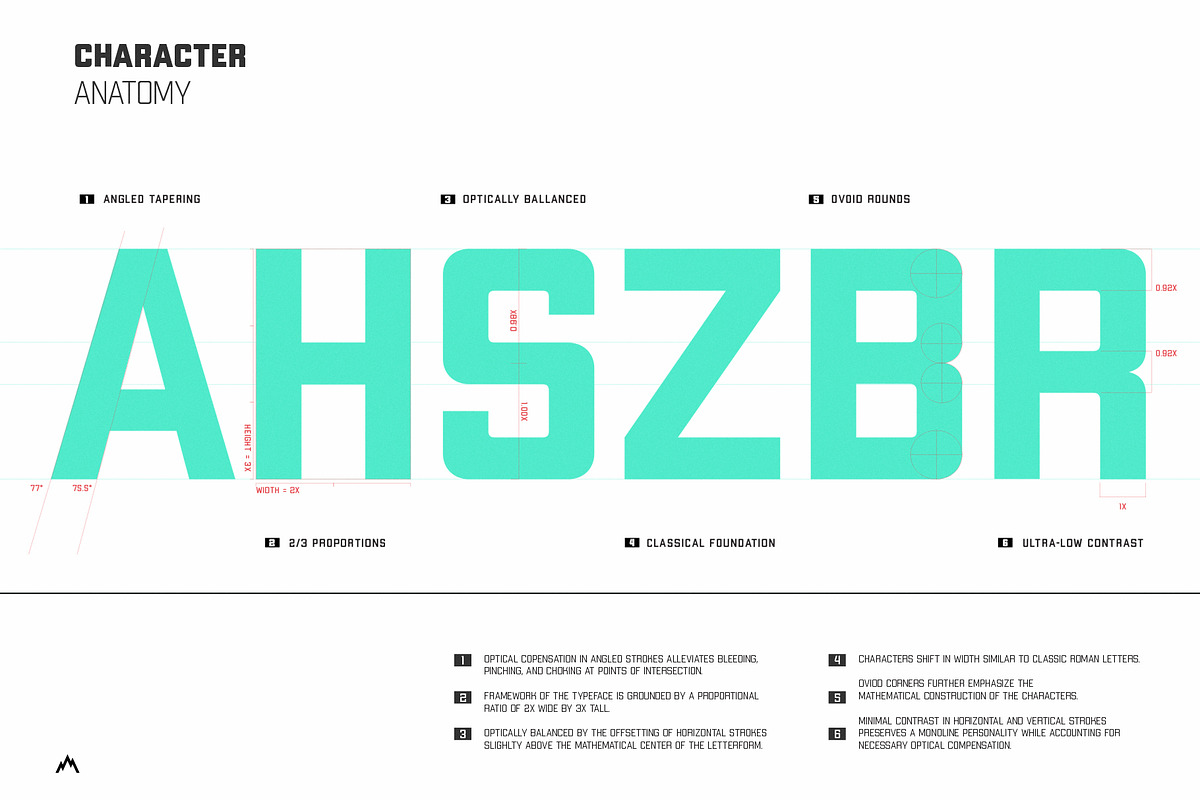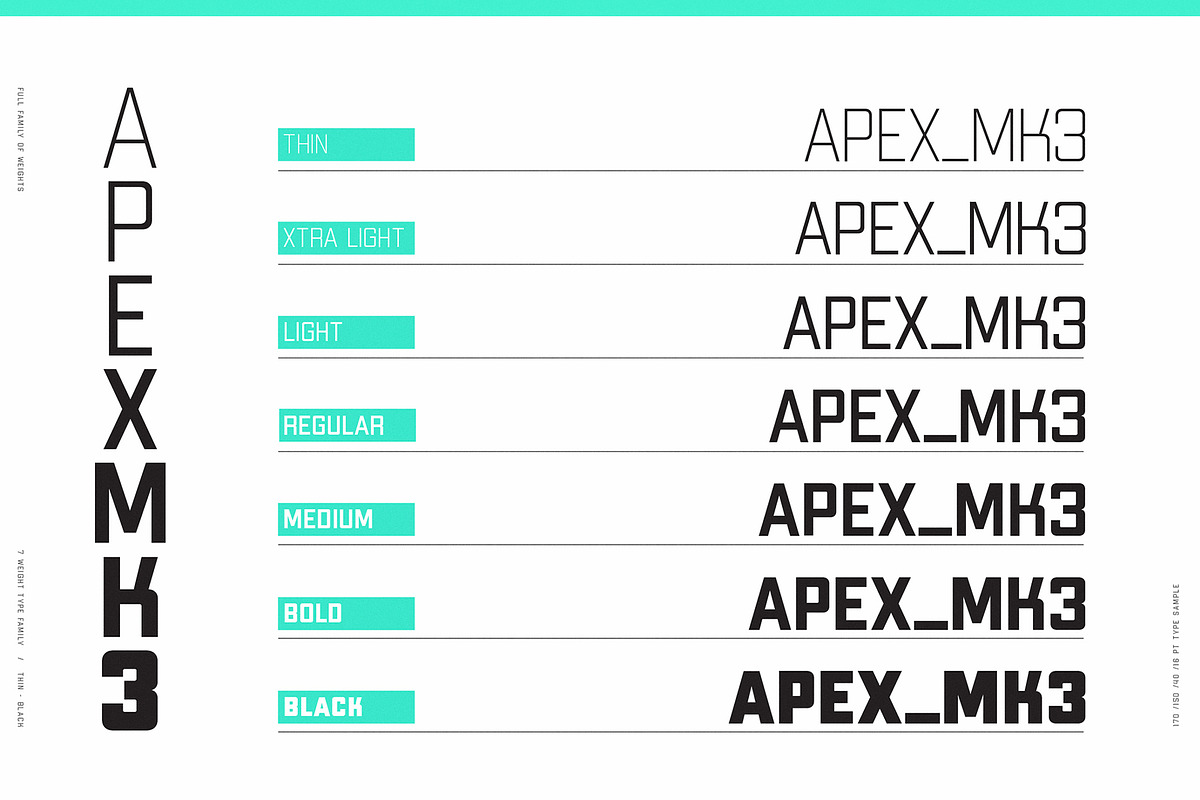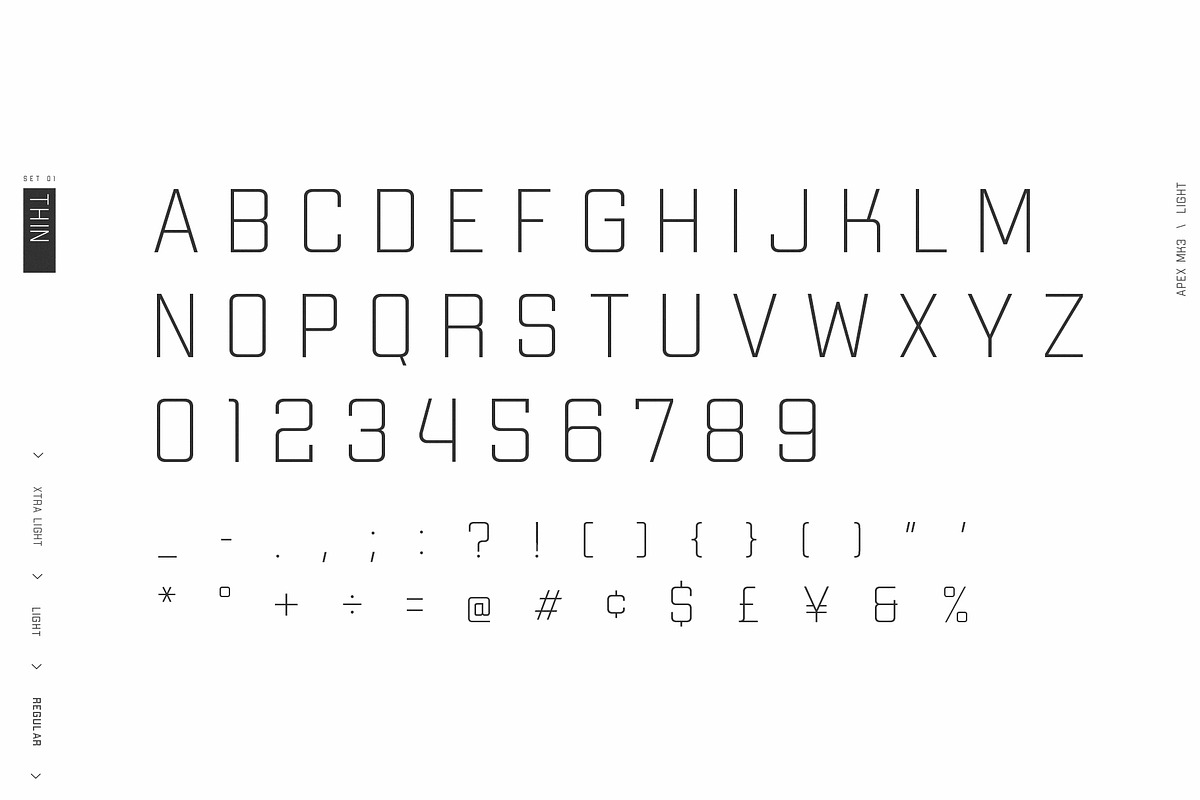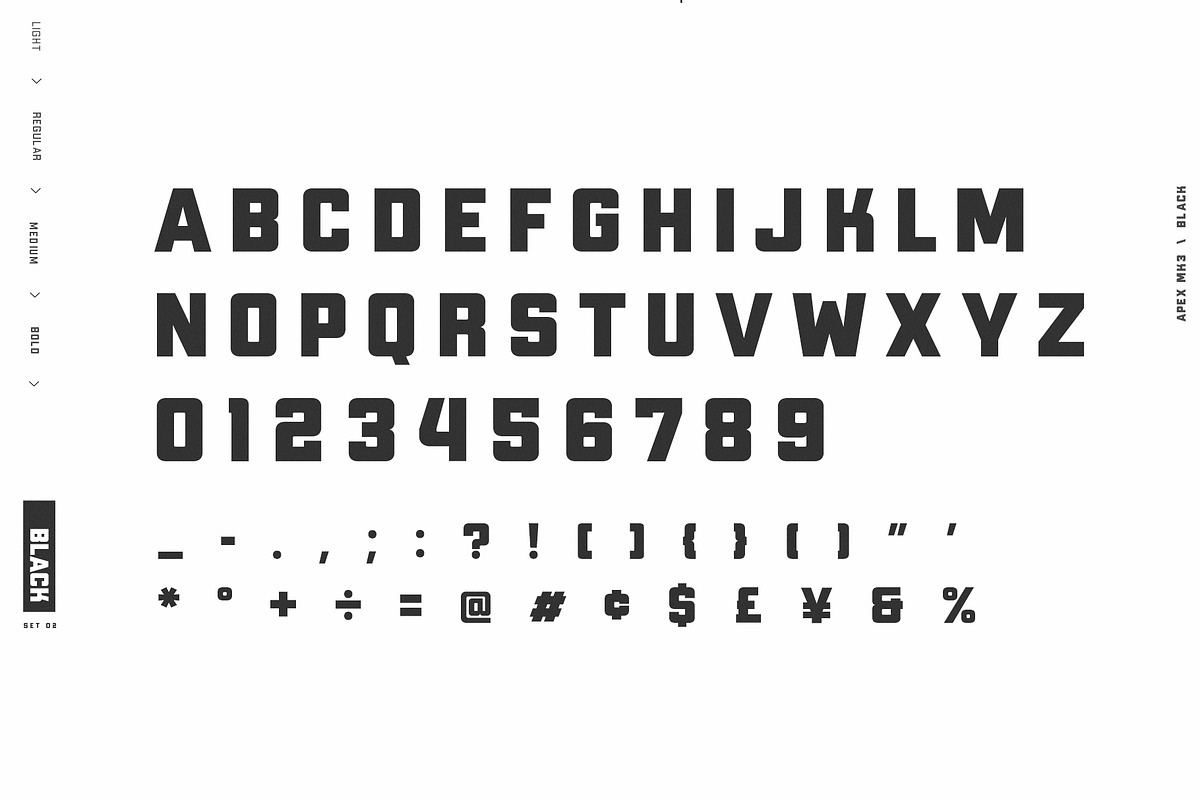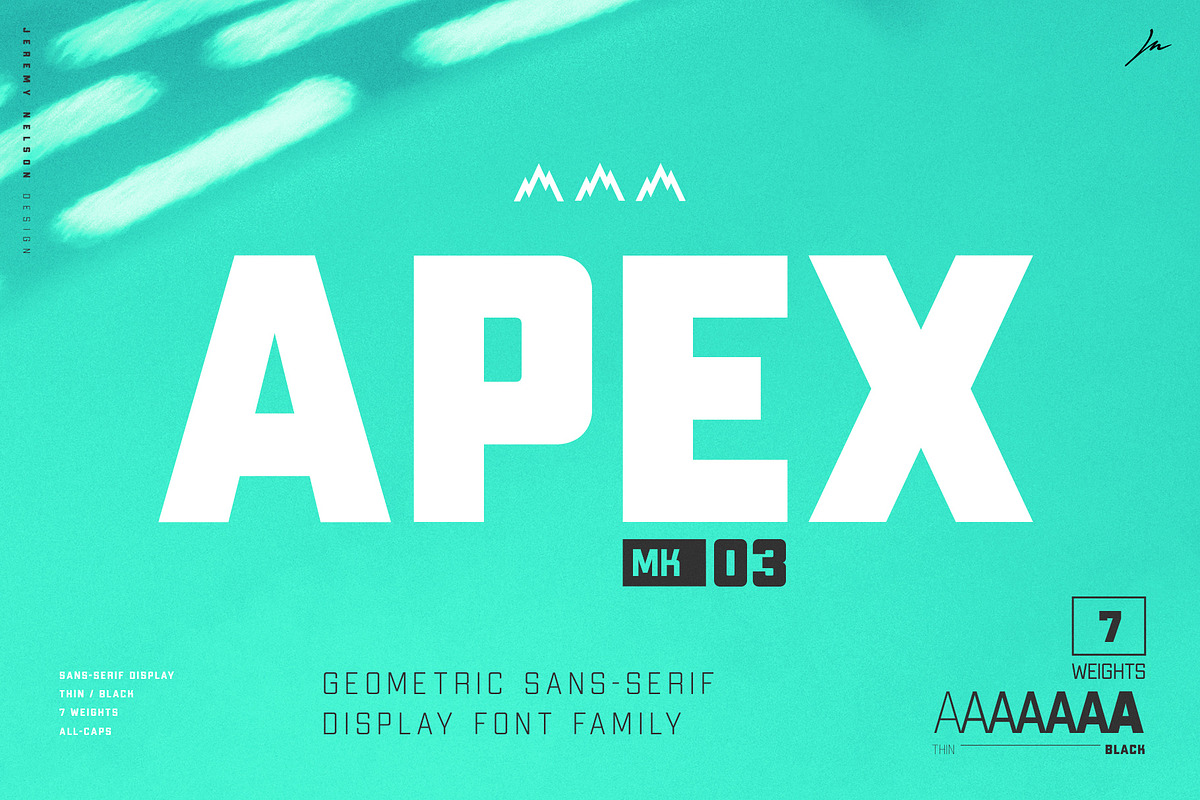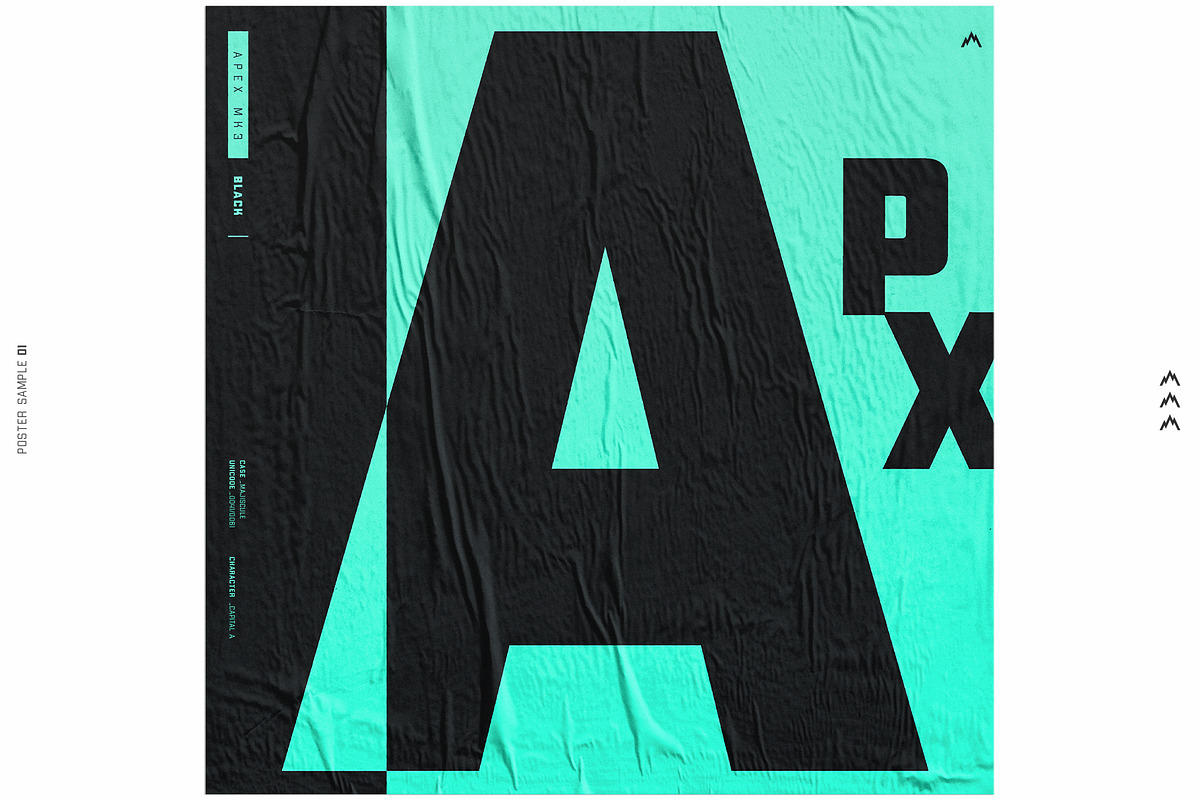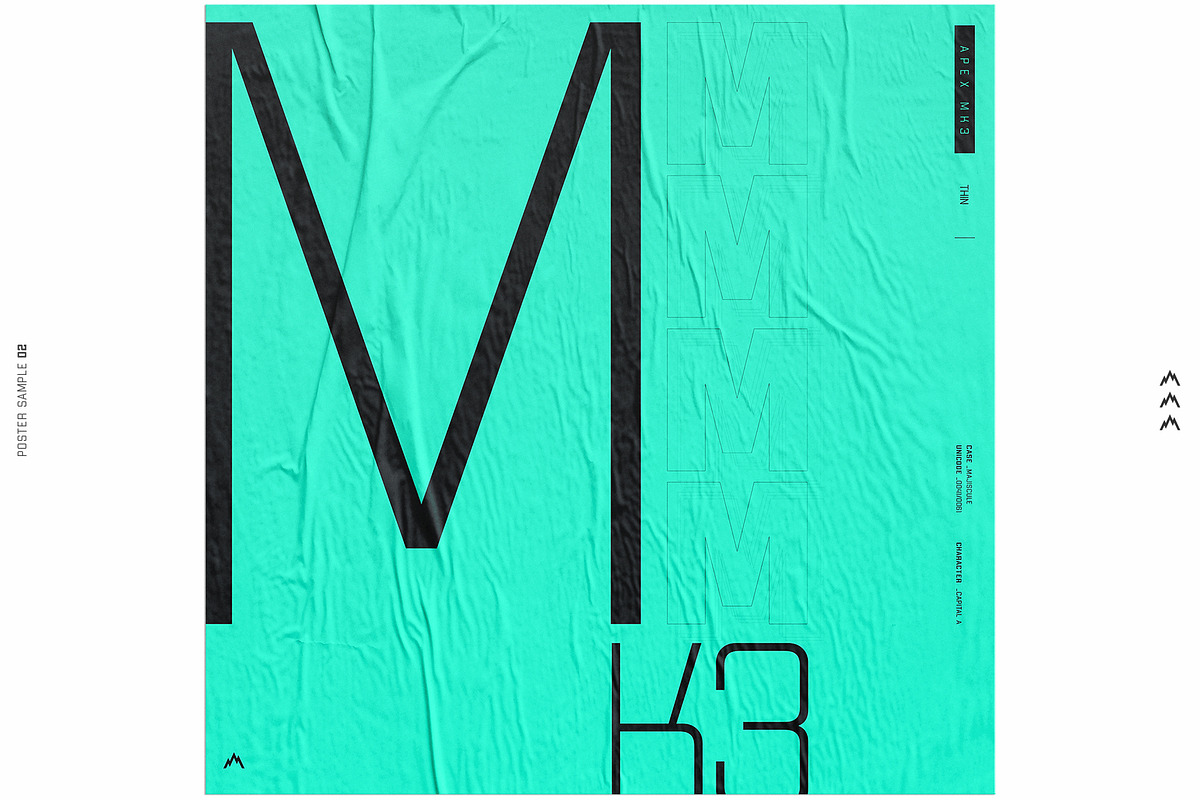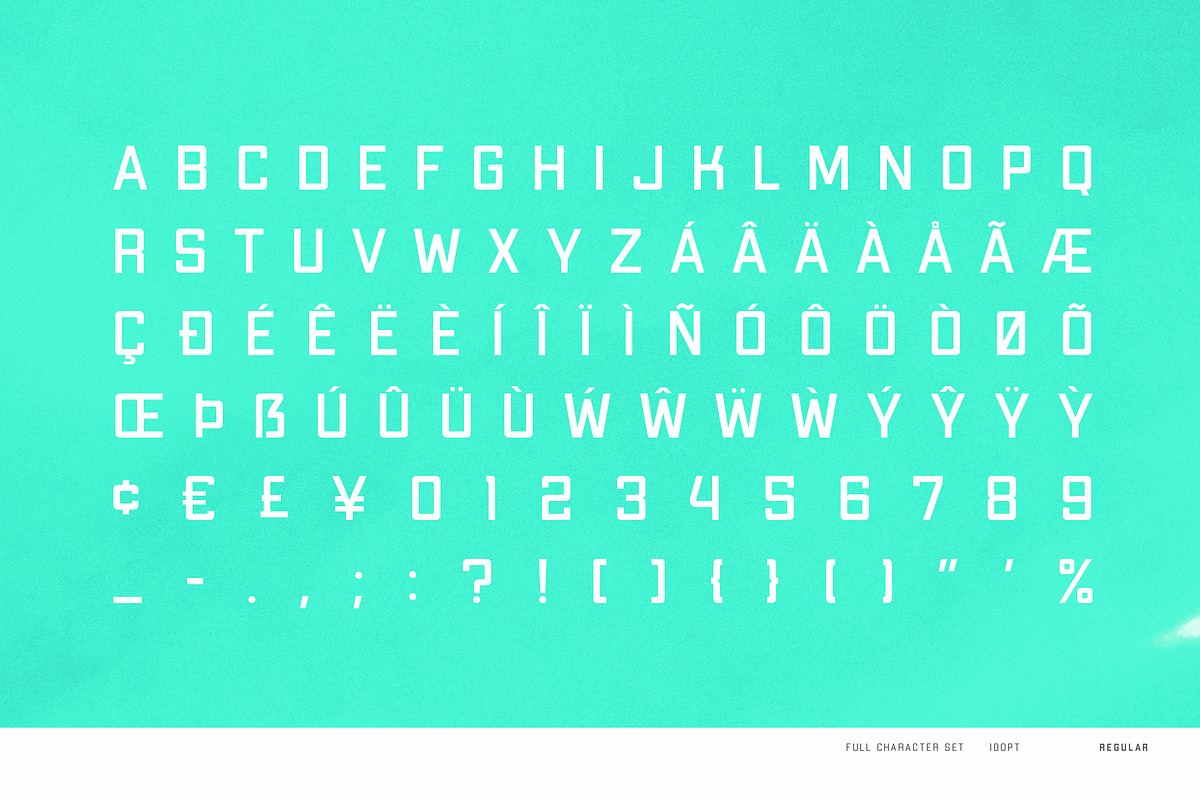
Apex Mk3 Font Family
Apex Mark 3 is a rounded-rectangular display typeface that takes inspiration from classic geometric forms, utilitarian type styles, and athletic block-type. As a neutral sans serif, simplicity of form gives Apex flexibility for a broad range of uses, while its geometric frame provides the foundation for a typographic voice that can be clinical and precise or bold and authoritative.
Apex Mk3 comes in seven weights ranging from Thin (100) to Black (900).